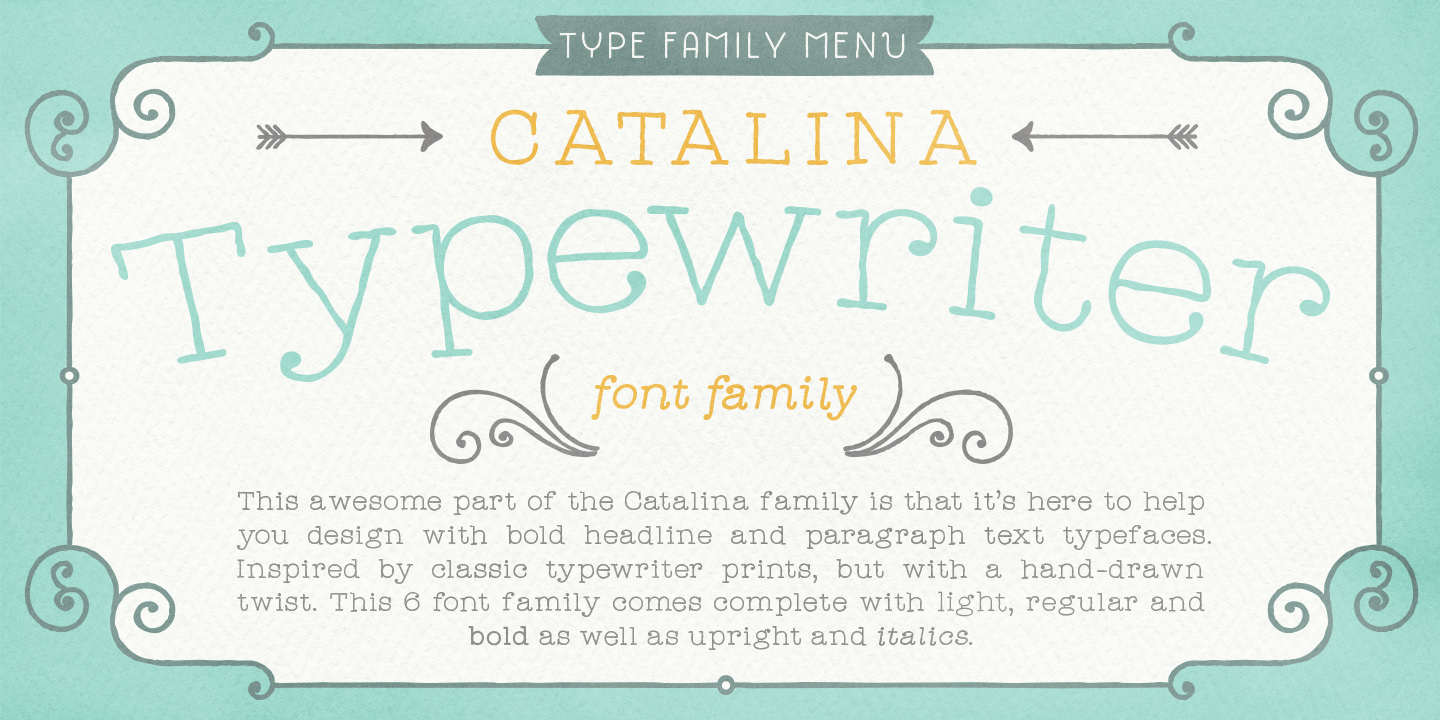
Catalina Typewriter Family (6 fonts)
From Kimmy Design
The Catalina Typewriter is the second of the paragraph text sub-families. This typewriter inspired hand-drawn font family works great as either a display or paragraph text. It has contextual alternatives with 3 versions of each letter, and comes in both upright and custom italics versions.
About Kimmy Design
In congruent with a career in Entertainment Marketing, Kimmy is also a letterer, typographer and font creator, with multiple fonts available from FontHaus. For the past two years, she has been the head designer for the music festival SnowBall and SnowGlobe, creating the main festival poster, website elements and all promotional and advertising efforts, both in print, outdoor and web.
Kimmy lives and works out of Santa Monica, CA.